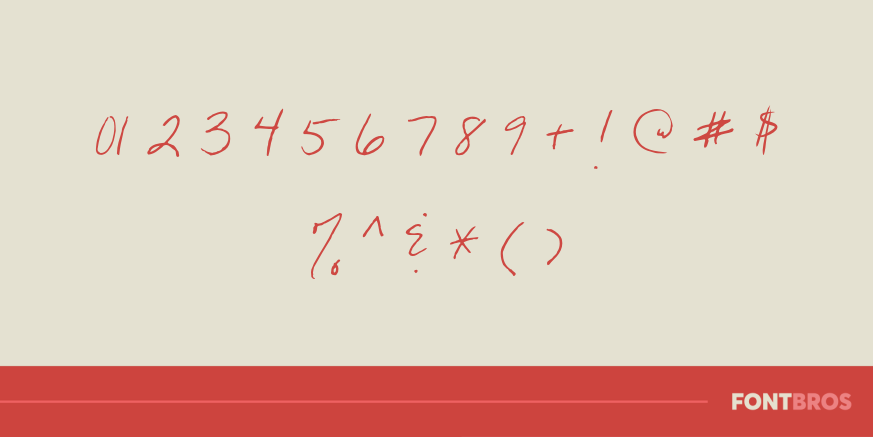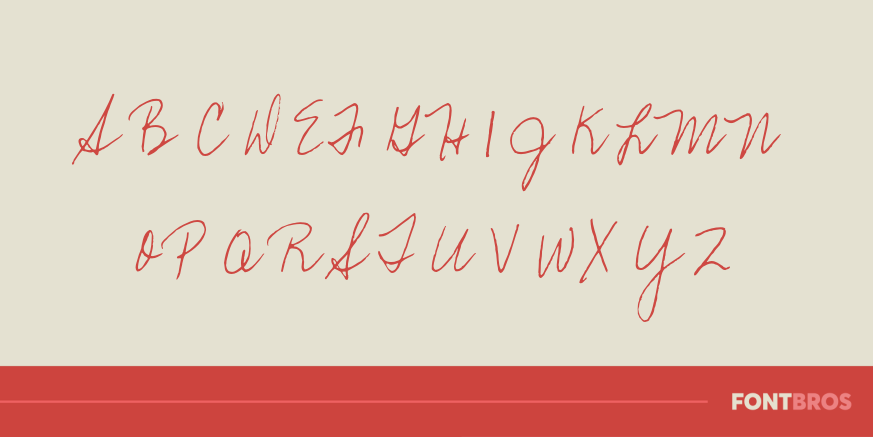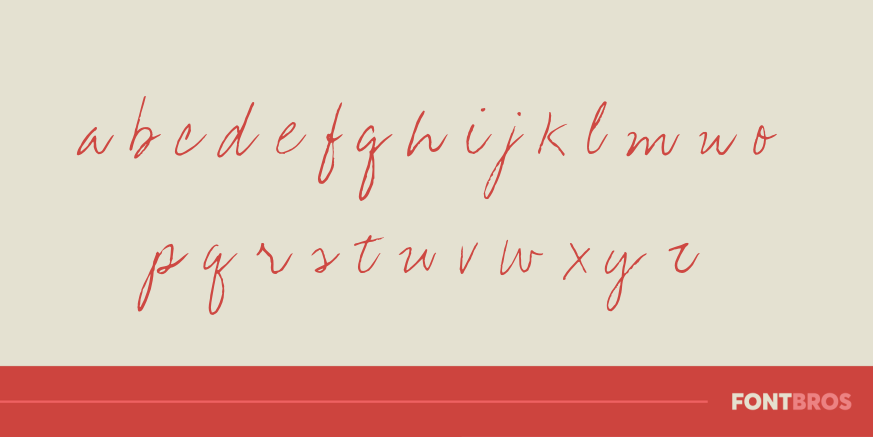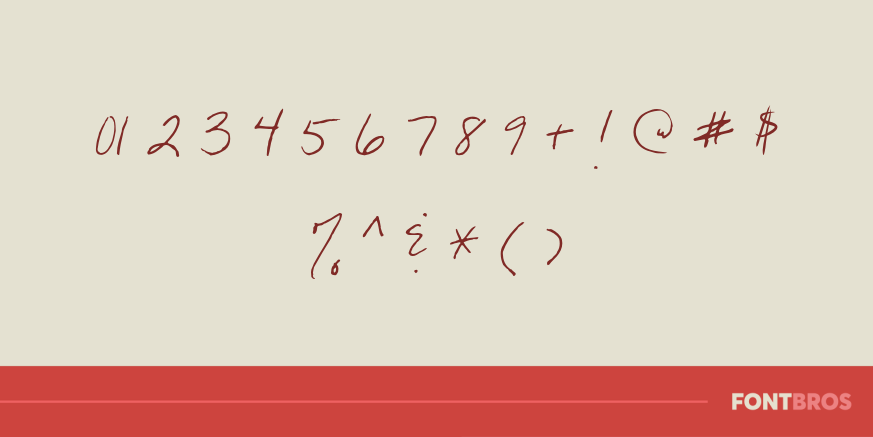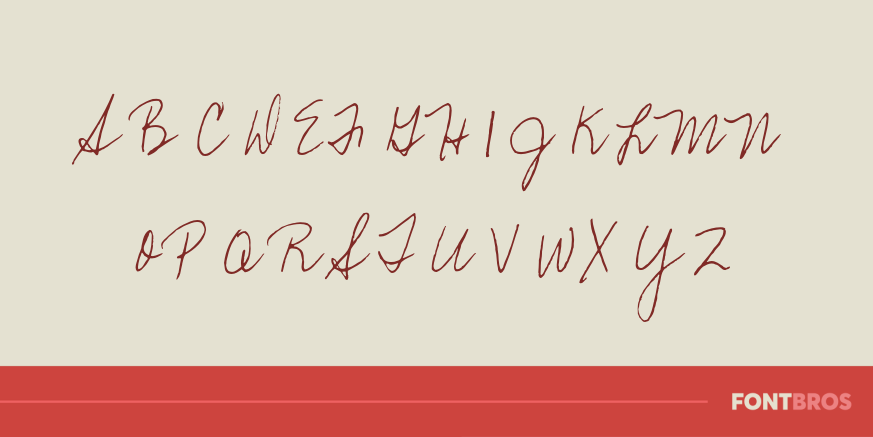
Beer Dip
Font Family by Font Diner
Our first fully connecting cursive handwritten font inspired by its namesake receipt, it's Beer Dip! A Wisconsin classic!